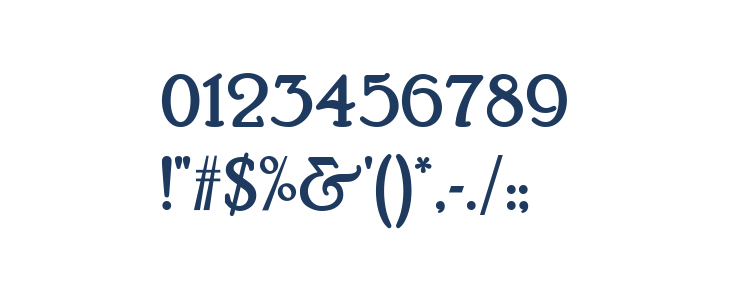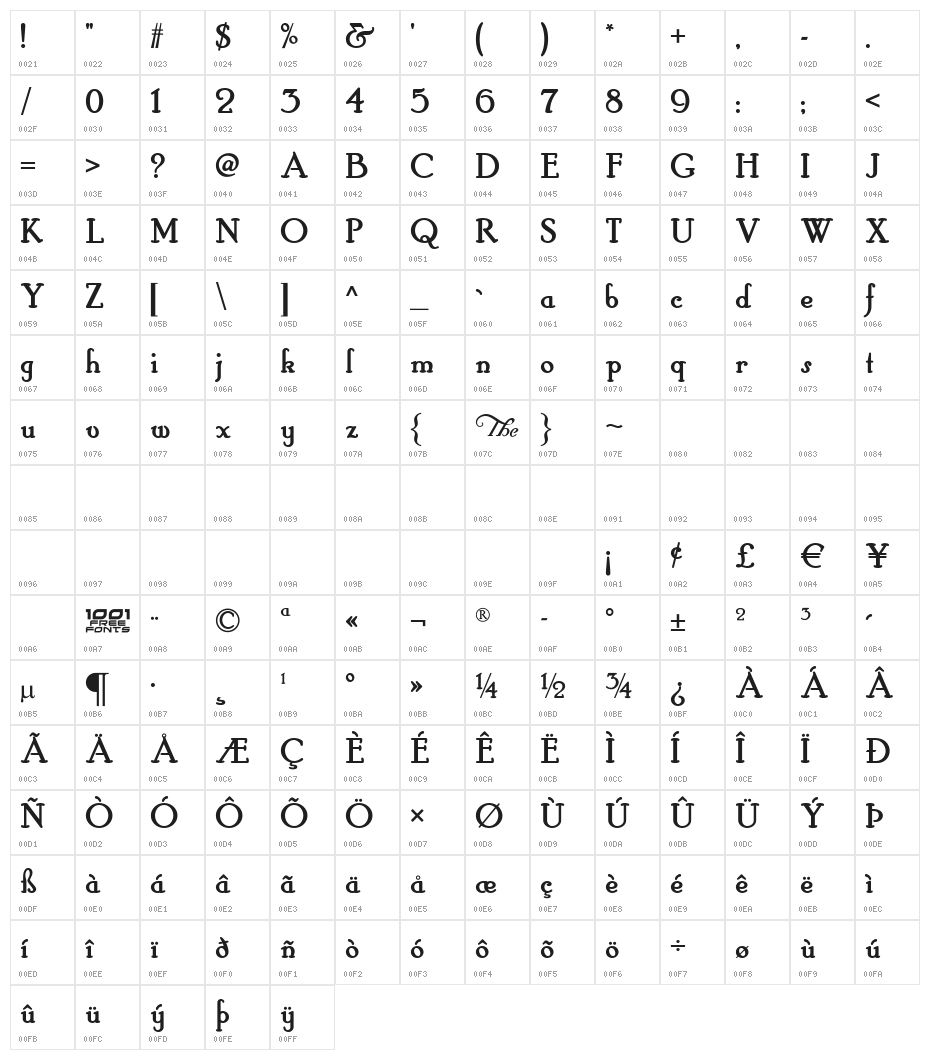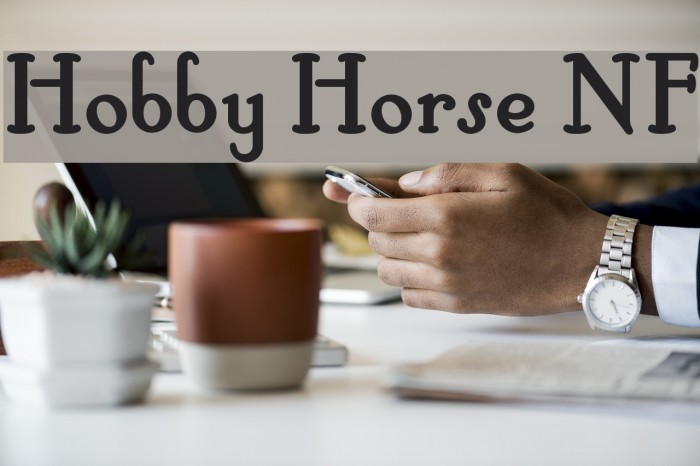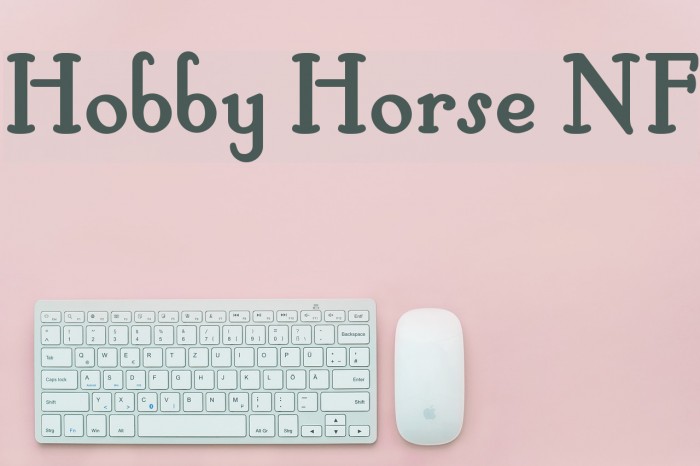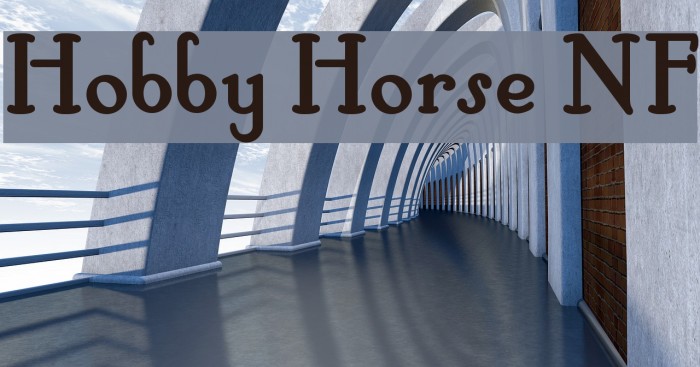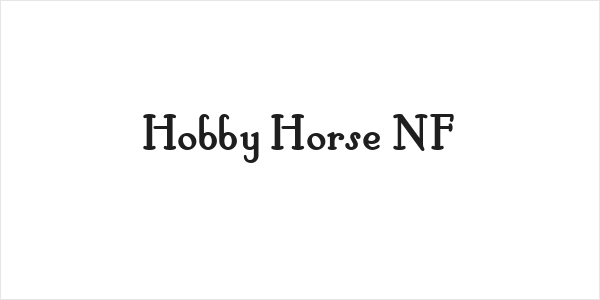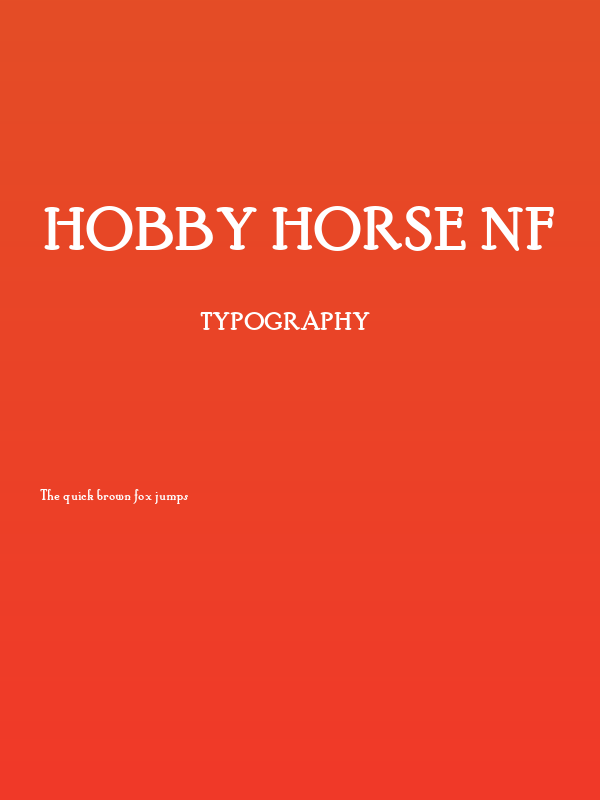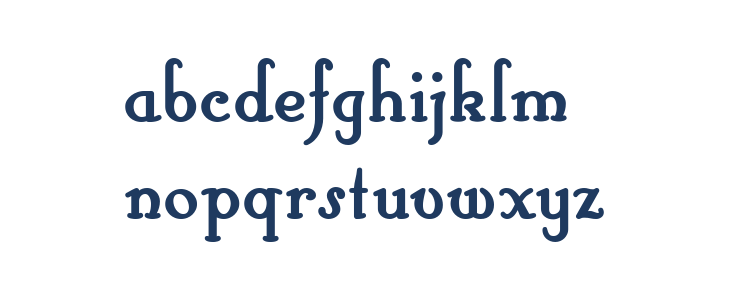
Hobby Horse NF Font
Hobby Horse NF Description
This font features a playful and whimsical design with a vintage flair. The characters have a distinct, rounded appearance with subtle serifs that add a touch of elegance. The uppercase letters are bold and prominent, while the lowercase letters maintain a consistent style with slightly exaggerated curves. The numerals are clear and easy to read, complementing the overall aesthetic. Special characters are creatively designed, maintaining the font's unique personality. This font is perfect for projects that require a blend of fun and sophistication.
| Proposed Projects | Ideal for children's books, playful branding, vintage-themed posters, and creative invitations. |